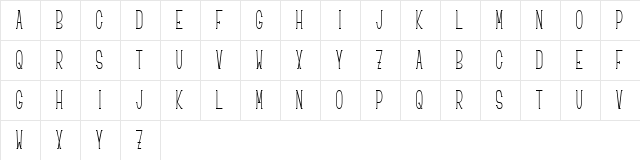
Ciao Regular
Design Context for Ciao Typeface
Ciao offers clean, dependable letterforms without strong stylistic allegiance, making it a practical choice for designers who need flexibility.
Pro Tip: Pair Ciao with a font of contrasting weight or personality to build a more expressive typographic hierarchy.